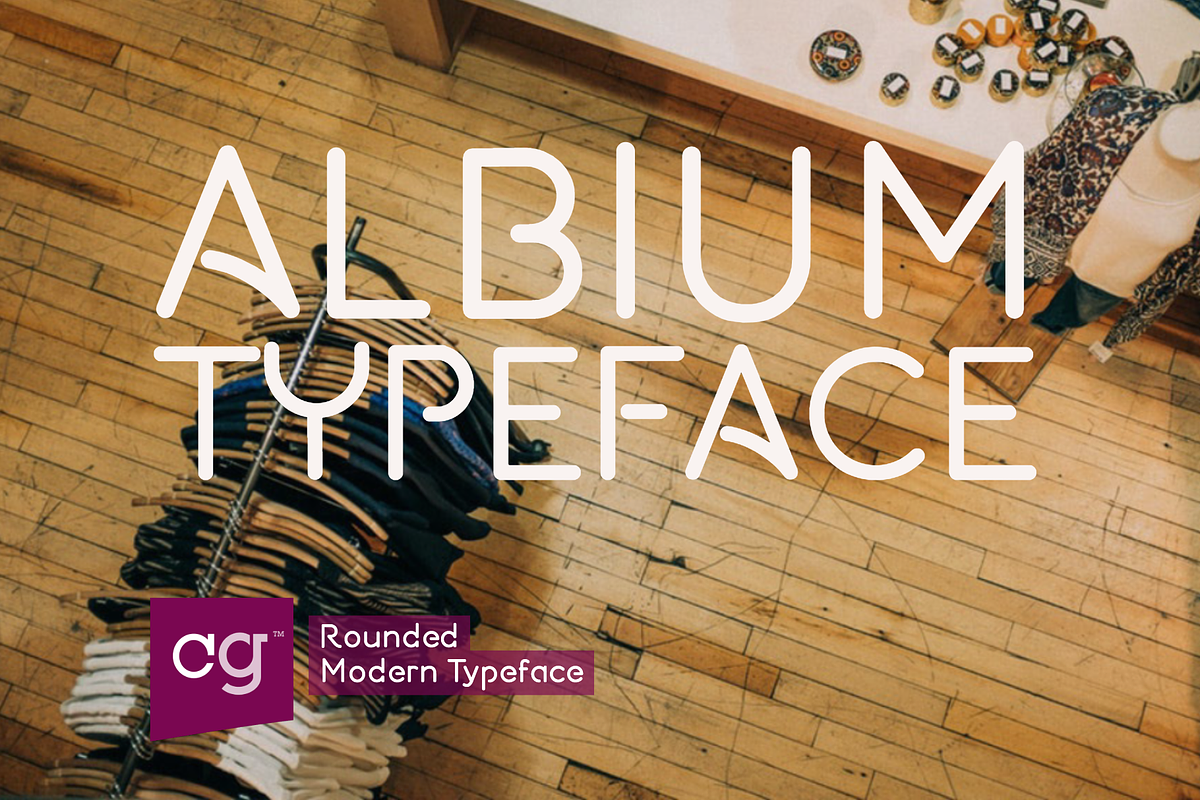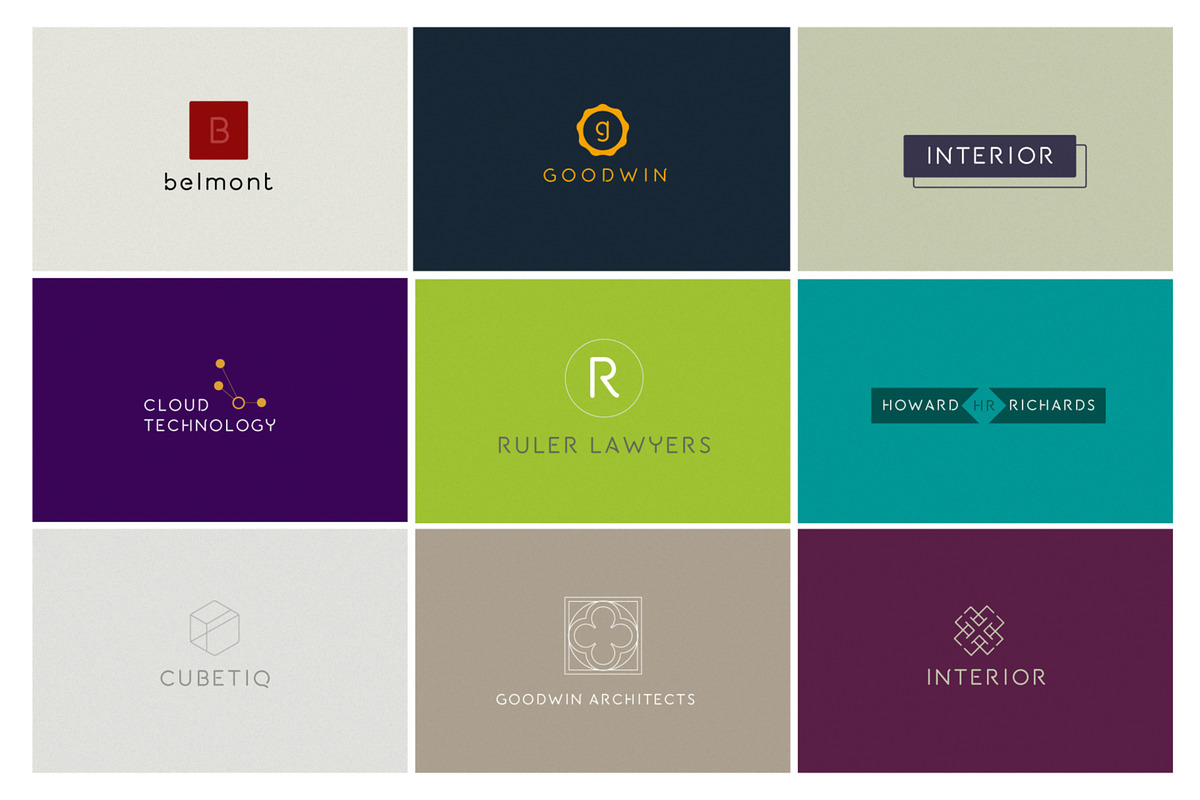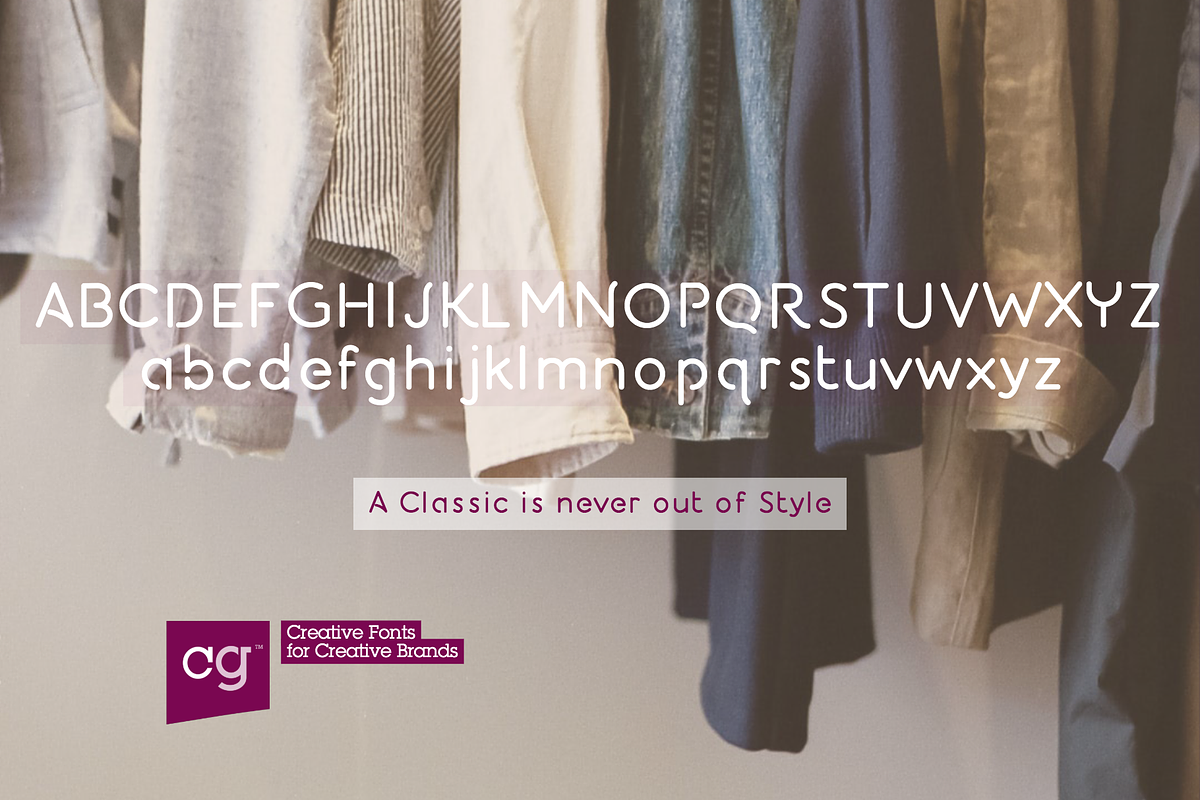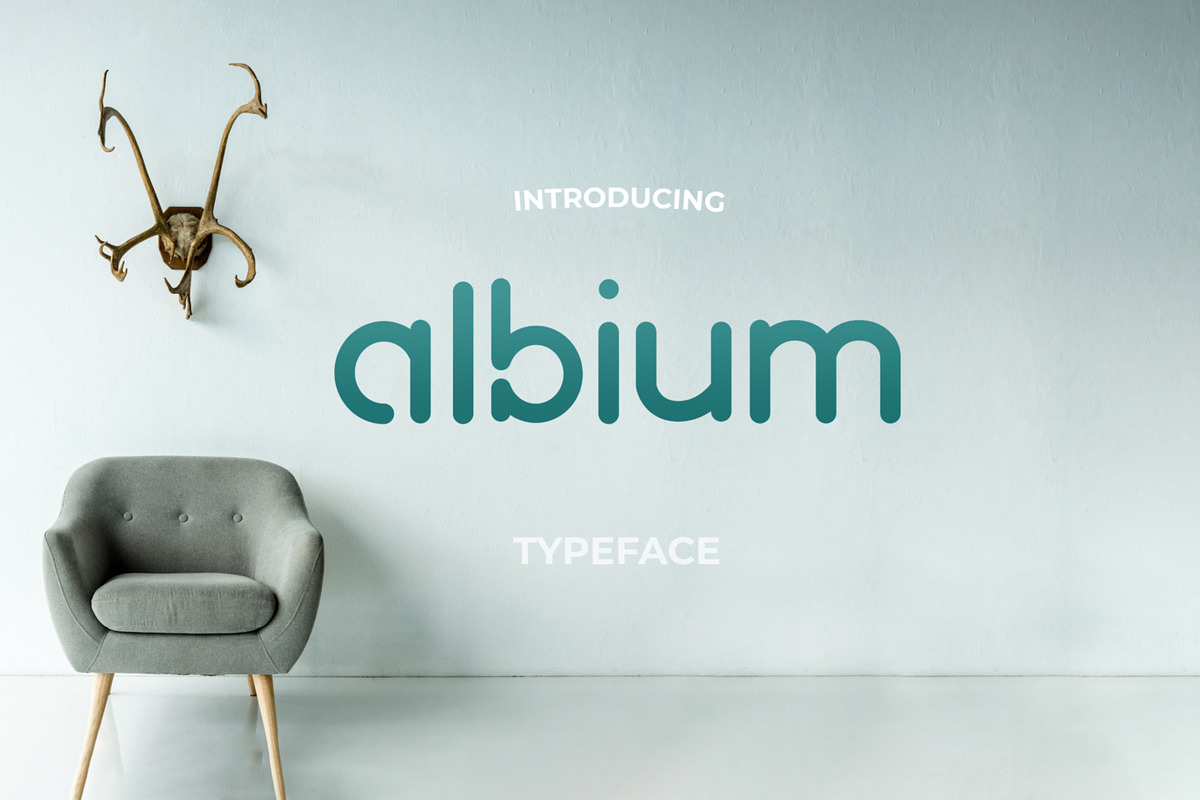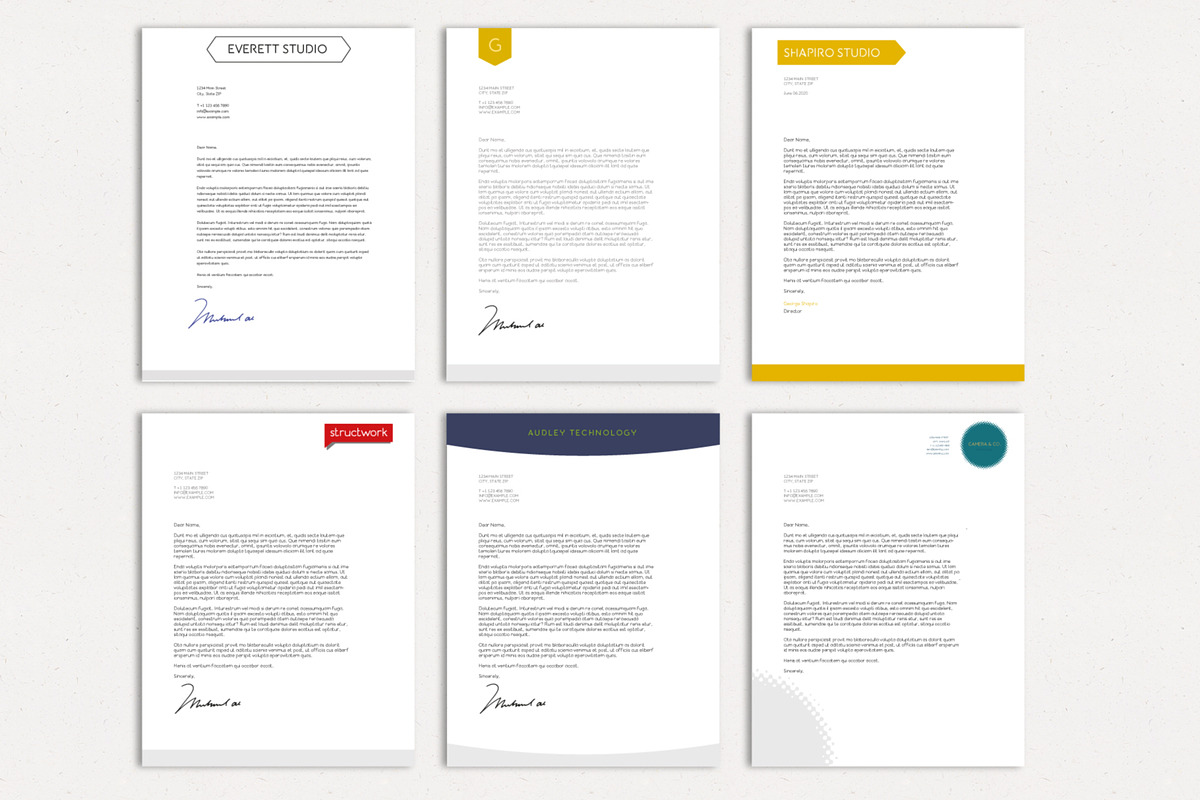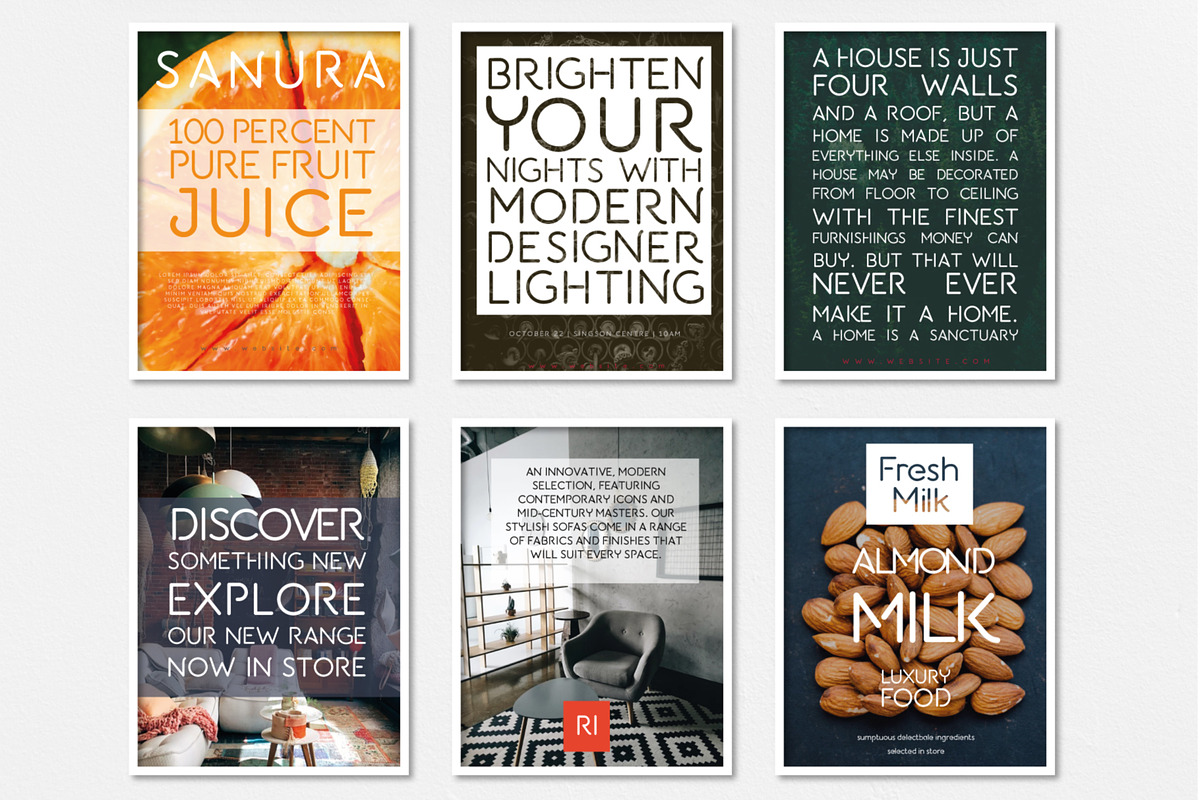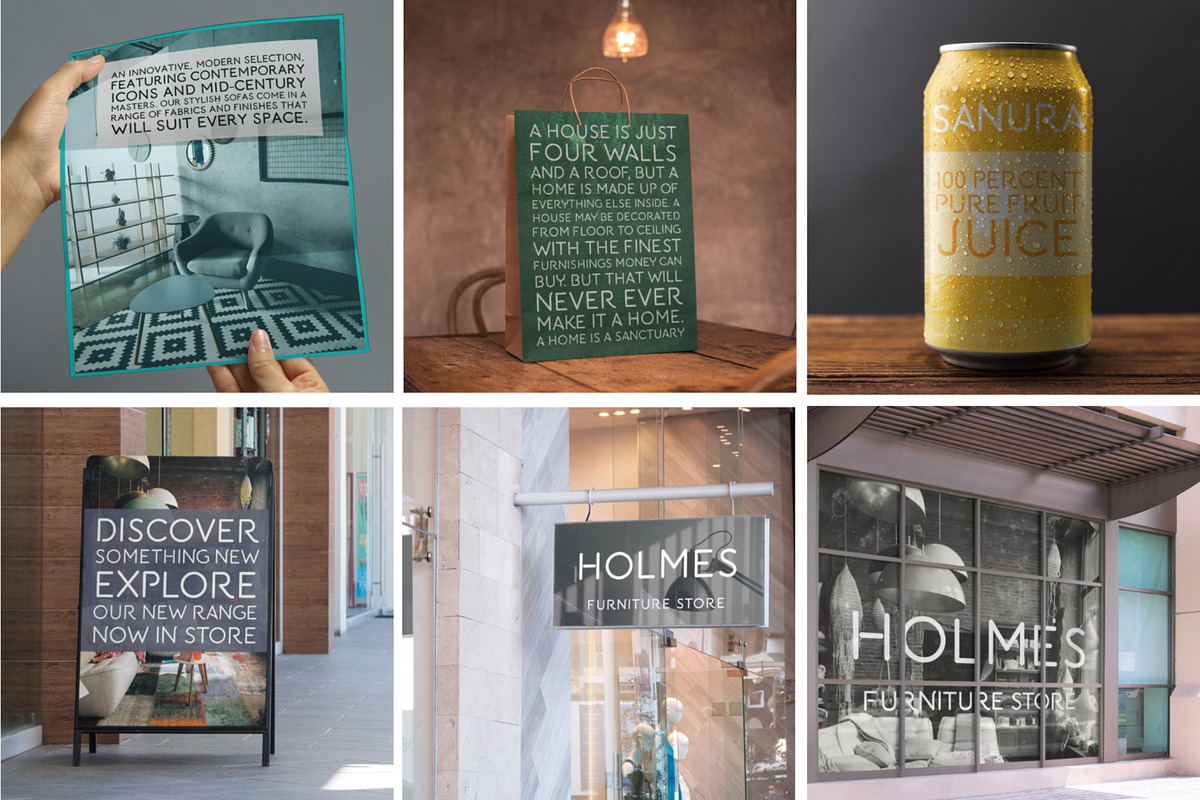
Albium - Round Identity Font
Albium is a mix of single stroke open shape formed letters with rounded ends that work well at different sizes, creating a modern, friendly and approachable style. Developed with OpenType features this versatile font is great for logos and headlines alike. Great for use as headings, banners, labels and for a bold statement.
This pack includes over 70 editable design templates for you to start your design with Albium font, including Logo designs, Business Card Designs, Poster and Flyer Designs.